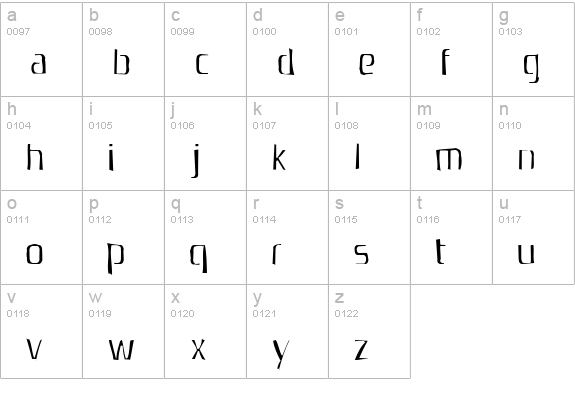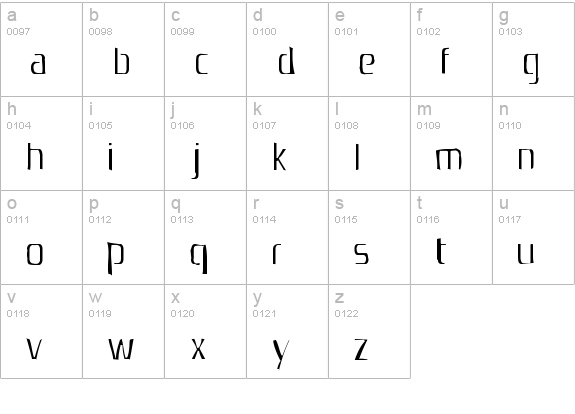
Zrnic Gaunt Font Details
Zrnic Gaunt font is a striking display typeface that exudes a sense of boldness and modernity. With its sharp edges and geometric shapes, this font is perfect for creating eye-catching headlines, posters, and logos. The clean lines and slender strokes of Zrnic Gaunt give it a sleek and professional look that is sure to make your designs stand out. What's even better is that Zrnic Gaunt font is completely free to download at FontsMarket.com. This means that you can add this stylish font to your collection without having to spend a dime. Whether you're a professional designer looking for a new font to add to your toolkit or a hobbyist looking to spice up your projects, Zrnic Gaunt is a fantastic choice. Download it today and start creating stunning designs with this versatile and dynamic font.